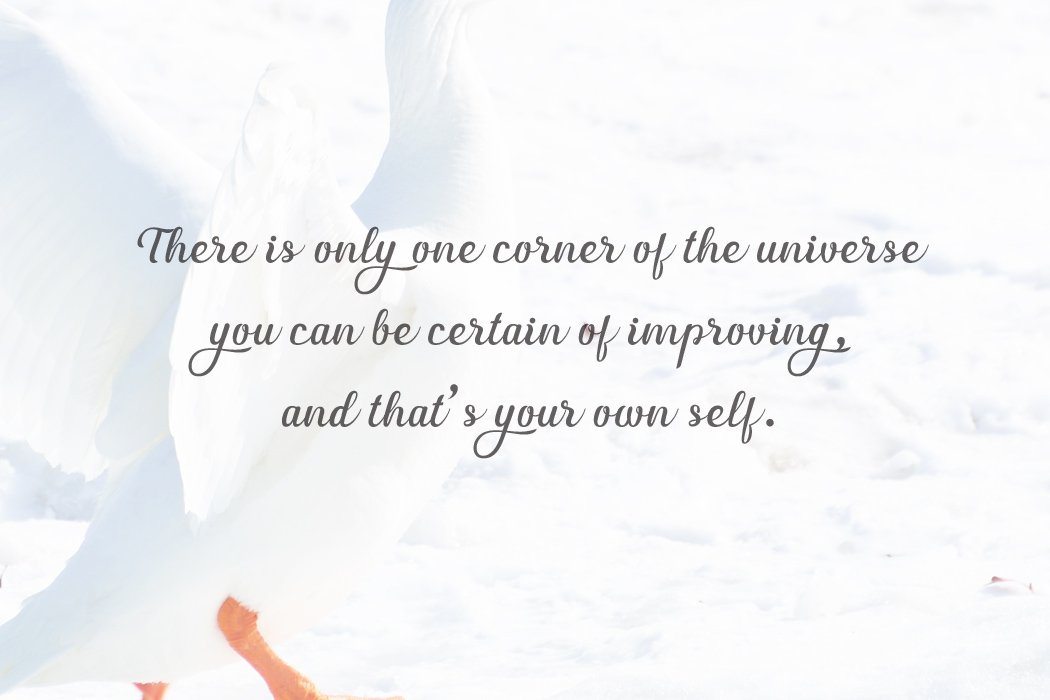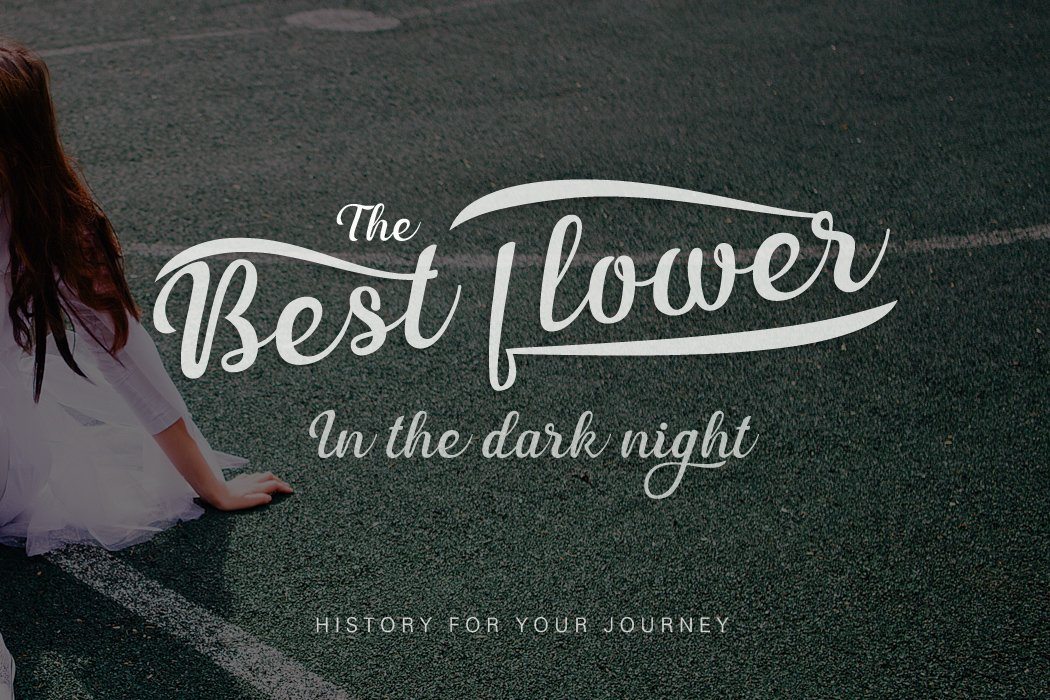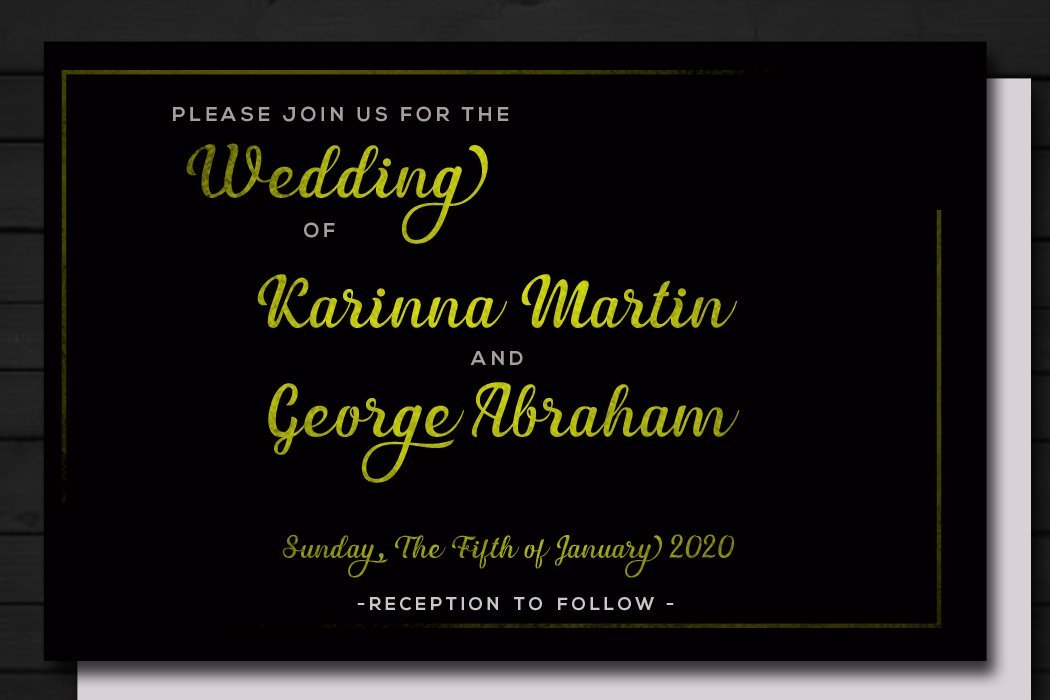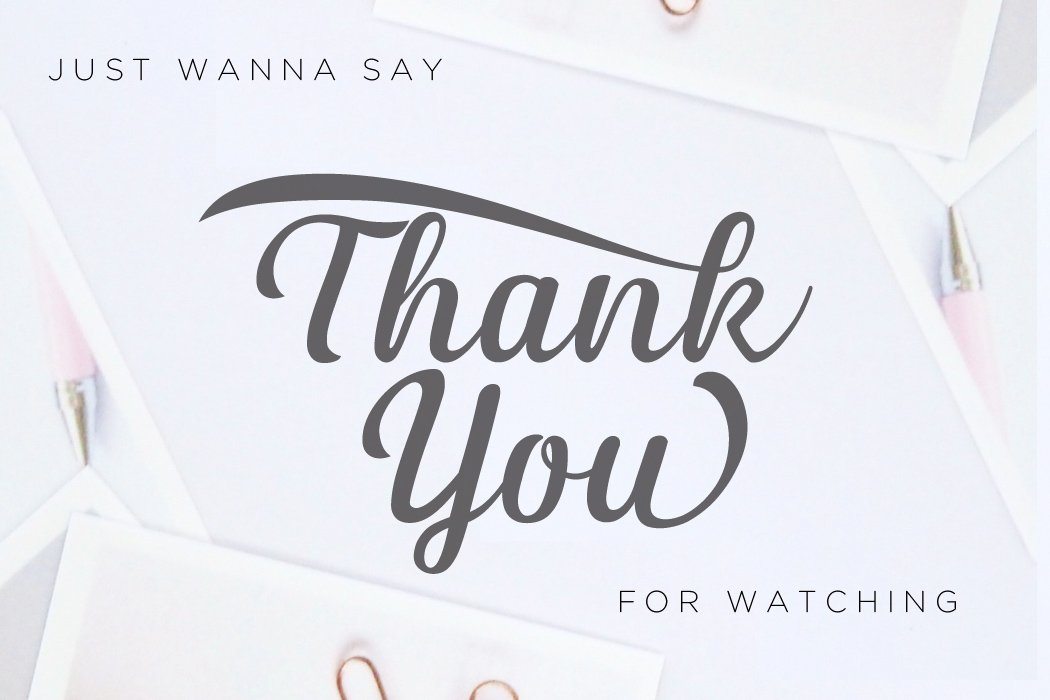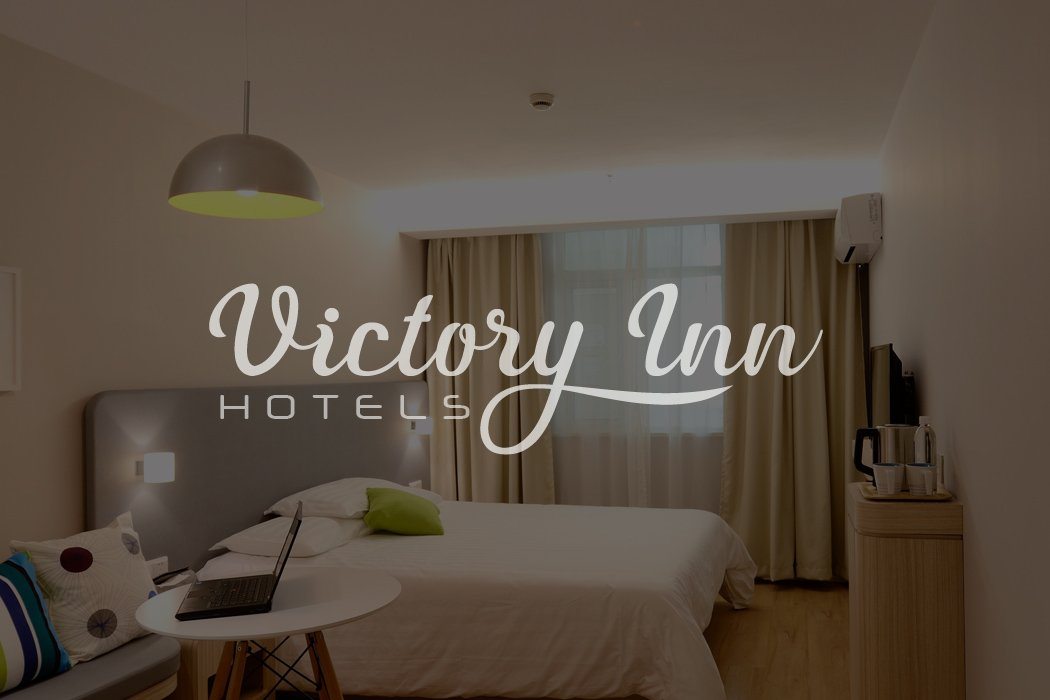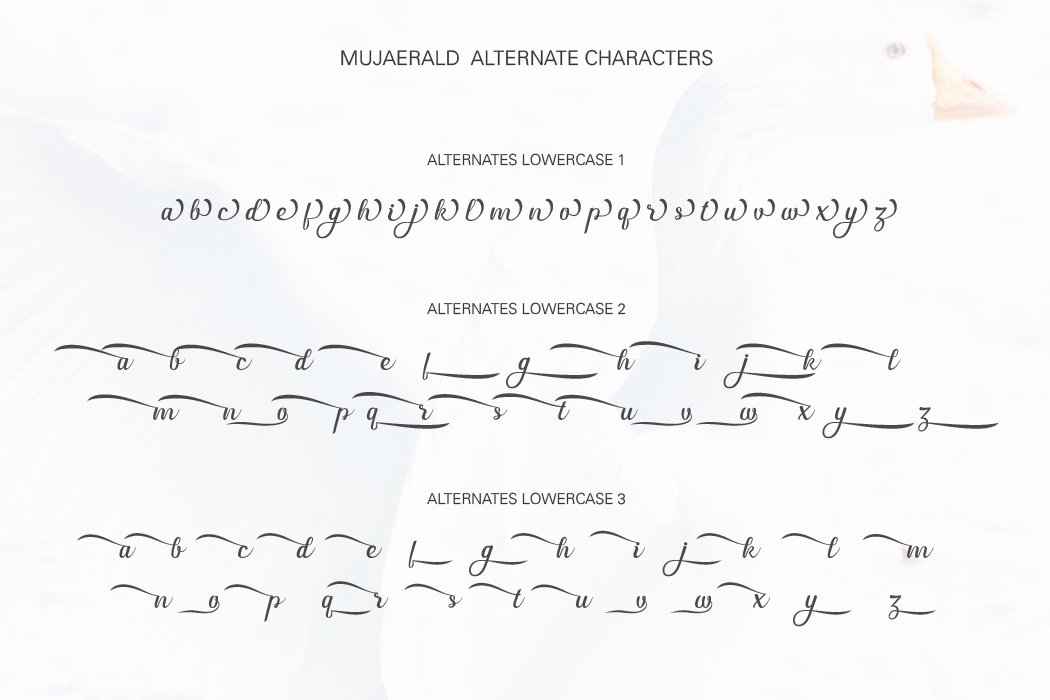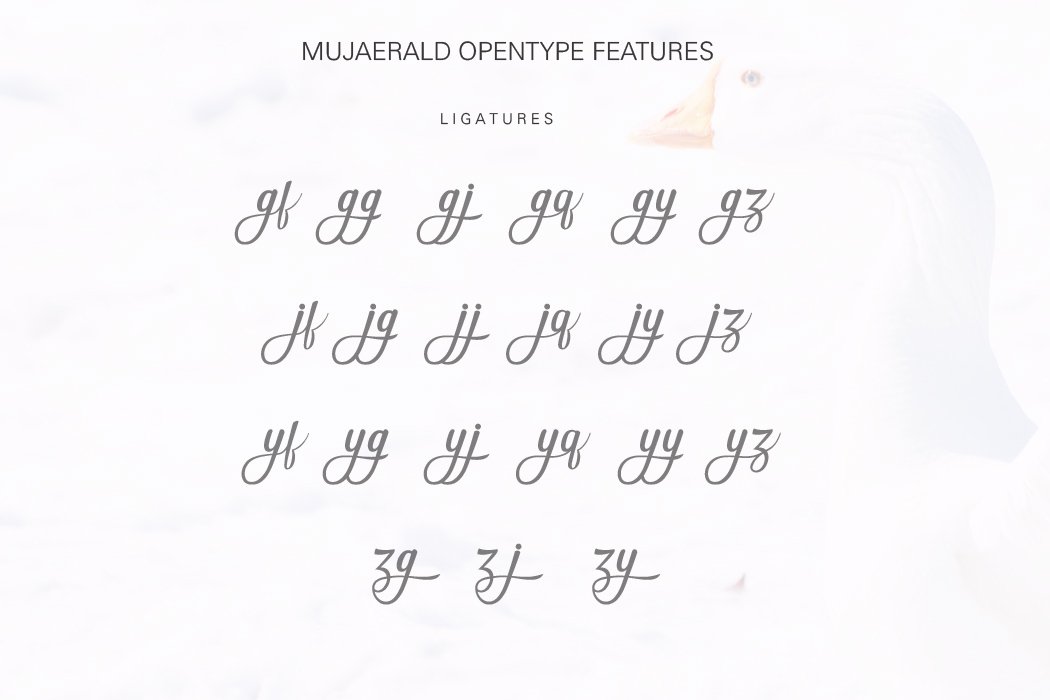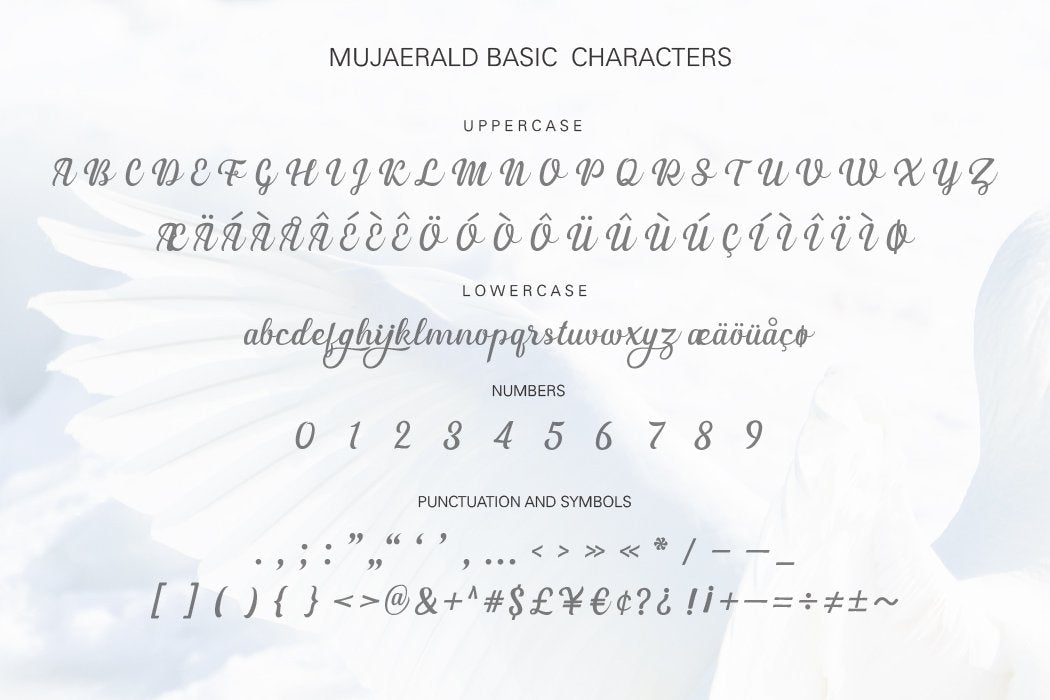
Mujaerald font
About Mujaerald font
Mujaerald font Mujaerald is a nice script font with clear, simple and elegant look. The available alternates and ligatures offer a number of different characters that give your typographic a unique look. It is perfect to apply in various formal forms like invitations, labels, menus, Logos, fashion, make up, stationery, letterpress, romantic novels, magazines, books, greeting / wedding cards, packaging, labels and more. Features : – Available in single OTF and TTF files (Alternates also available in TTF separately ) – Uppercase A-Z – Lowercase a-z – Numbers 0-9 – Punctuation – Custom Ligatures – lowercase alternates – PUA Encoded – Multilingual support – Support for Windows, Mac and Linux OS Included : – Mujaerald.otf – Mujaerald.ttf – MujaeraldAlt1.ttf (Alternate glyphs) – MujaeraldAlt2.ttf (Alternate glyphs) – MujaeraldAlt3.ttf (Alternate glyphs) Please install OTF file. You need a program that supports OpenType features like Adobe Illustrator CS, Adobe Indesign & CorelDraw X6-X7, Microsoft Word 2010 or later to enable OpenType features (ligatures and alternates). In this case don’t install all files that we’ve provided, just need one OTF file. Please install all TTF files You should install all of TTF files in case you don’t have the programs that support OpenType features, so you can access all Mujaerald’s characters in almost all text processing program (Photoshop, CorelDraw etc). If you have any questions regarding this product kindly leave your message through the contact form, comment field or contact us at  We hope you enjoy this font!! Thank you.. Don’t forget to visit our shop and check our products out click here